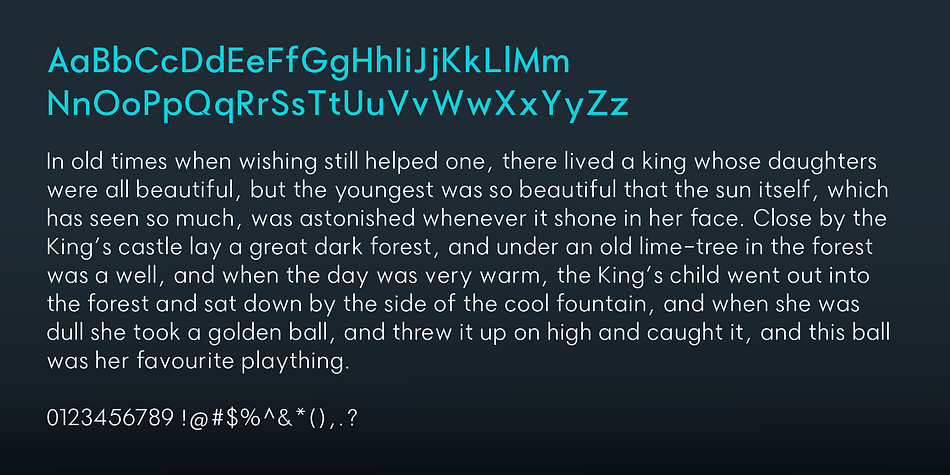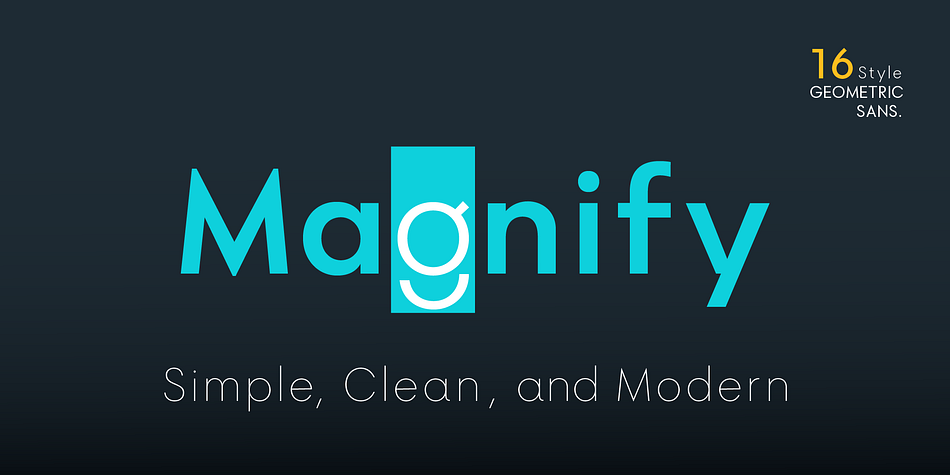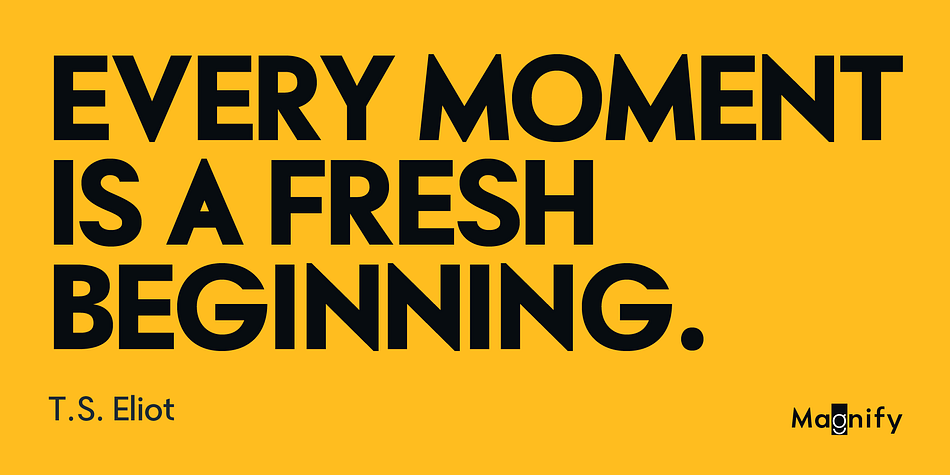
Magnify
Designed by Faldy Kudo, Magnify is a sans serif font family. This typeface has sixteen styles and was published by xdCreative.
Geometric sans serif is one of my favorite fonts because it’s simple, clean, and modern. For a long time, I’ve dreamt of creating this typeface, drawing inspiration from various media, particularly “Futura, 1927” (by Paul Renner).
Thus, I developed “Magnify,” a Geometric sans font. The structure and shape of Magnify’s elements are not perfectly circular, but slightly oval, as seen in uppercase letters like O, G, C, Q, and lowercase letters such as o, a, c, e.
“Magnify offers 8 weights, ranging from Hairline to Bold, along with matching Oblique styles. Additionally, Magnify features special alternate characters for letters a, g, y, and o. These alternates provide a distinct appearance to paragraphs, headlines, or your display designs.